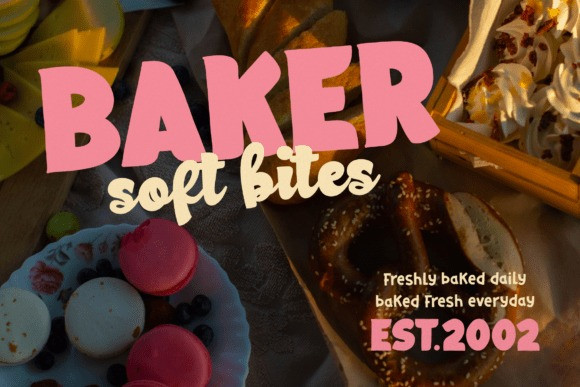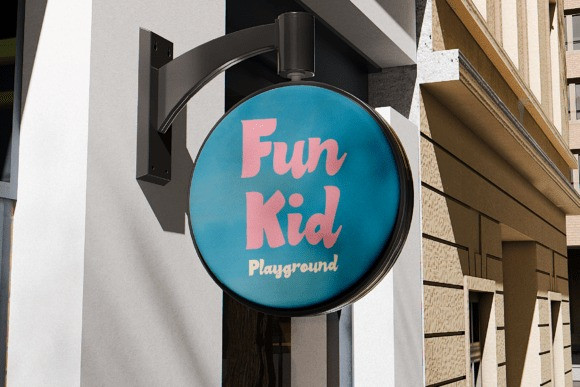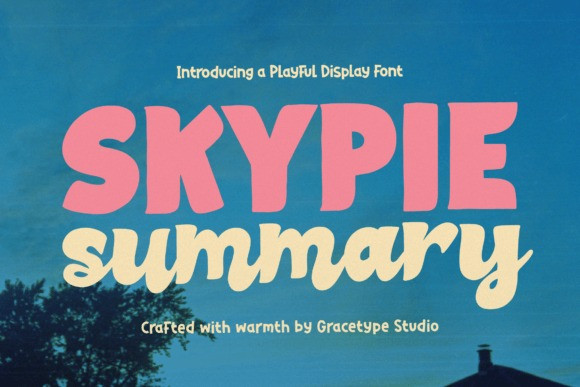
Skypie Summary Font
Skypie Summary Font a vibrant display typeface that captures a “warm-and-adventurous” soul. This font features two distinct styles: a heavy, rounded block serif for maximum impact and a bouncy, casual script that radiates friendliness. With its soft curves and rhythmic, “pop-retro” energy, Skypie Summary is the premier choice for independent travel vlogger branding, playful café identities, summer camp logos, and high-impact “joyful-and-authentic” social media headers.